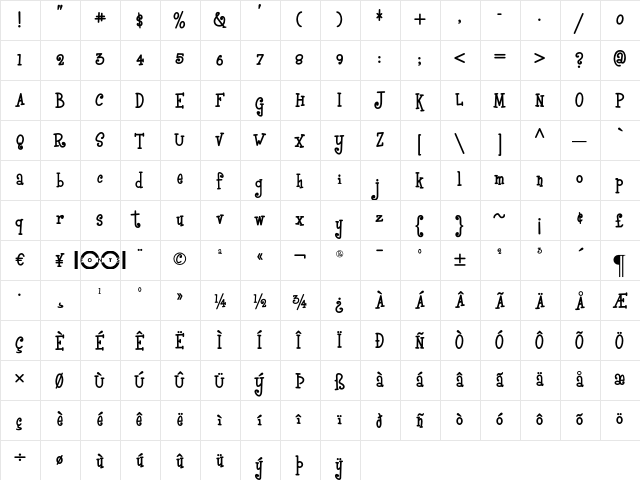
Boyz R Gross NF Regular Font Preview
Boyz R Gross NF Regular
Boyz R Gross NF Regular Font Details
Design Context for Boyz R Gross NF Typeface
Boyz R Gross NF is a composed and adaptable typeface that performs quietly and consistently across a wide range of design contexts.